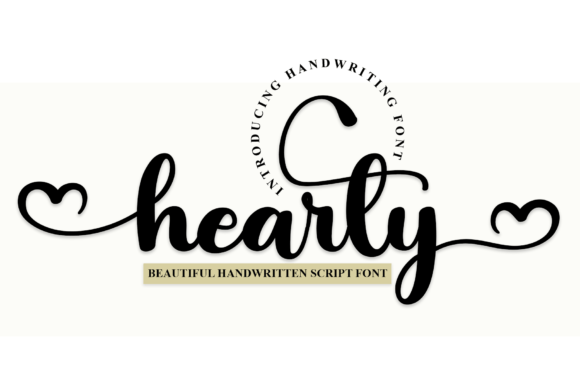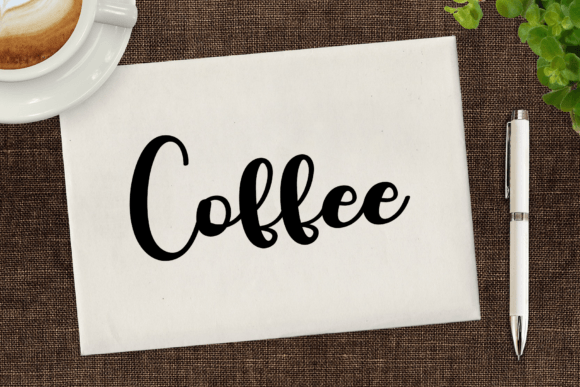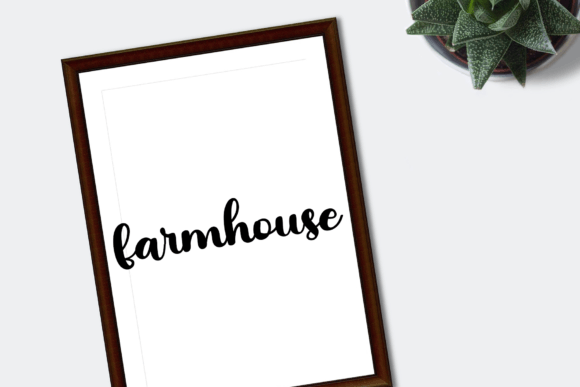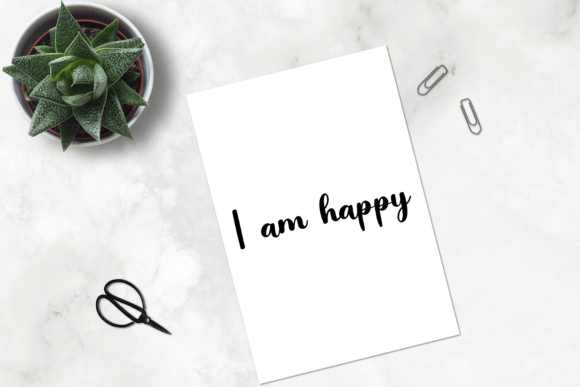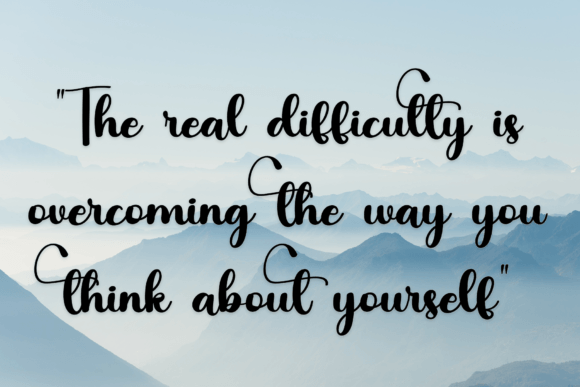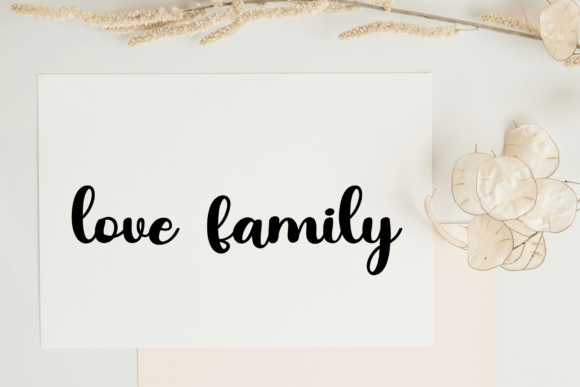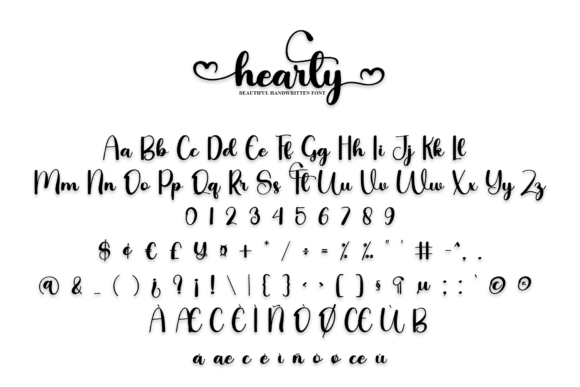
The Birth of a Beautiful Type: Hearty Font
As a designer, have you ever sat staring at a blank canvas, waiting for inspiration to strike? For many of us, it’s in those moments of creative limbo that we discover something truly special. For me, it was a late-night brainstorming session that led to the discovery of Hearty Font – a beautiful, elegant typeface that has since become my go-to choice for all things feminine and fabulous.
Hearty Font is more than just a pretty face; it’s a versatile and sophisticated tool designed to elevate any headline. Whether you’re crafting wedding stationery, designing packaging for a boutique florist, or creating social media posts that pop, Hearty Font is the perfect choice. Its delicate yet striking lines make it an instant favorite among designers, and for good reason – it’s a game-changer.
Hearty Font Key Features
- Unique Characteristics: Designed with a unique blend of modern and traditional elements, featuring a bold and friendly feel
Hearty Font Review
When I first laid eyes on the Hearty Font, I was immediately drawn to its warmth and inviting feel ✨. The font’s organic, handwritten style lends itself perfectly to designs that need a touch of personality and character. The Hearty Font is ideal for use in titles, headings, and other large-scale text elements where you want to make a statement.
The font’s versatility is another major plus ✨. It works well across a range of digital platforms, from websites and mobile apps to social media and print materials. The font’s robustness and legibility also make it a great choice for use in environments with varying screen resolutions and font sizes.
While the Hearty Font is a solid choice for many design applications, there are some limitations to be aware of ⚠️:
- The font may not be the best choice for use in body text, as it can be quite dense and may be difficult to read in large blocks.
- The font’s handwritten style can be a bit inconsistent, which may make it challenging to achieve perfect alignment and spacing.
Overall, I’m impressed with the Hearty Font’s unique character and versatility ✨. While it may not be the best choice for every design application, it’s a great option to have in your toolkit. With a little creativity and experimentation, you can achieve some truly unique and engaging designs using the Hearty Font.
Tips for Getting the Most Out of Hearty Font
Hearty Font is ideal for creating bold, eye-catching headlines. Use it to add emphasis to your text and make it stand out in your design. Experiment with different font sizes and colors to create a visually appealing effect.
Alternatives to Hearty Font
Playfair Display is a luxurious, elegant serif font ideal for titles and headings. It features intricate details and ornate flourishes, making it perfect for high-end branding and sophisticated designs.
Compared to Hearty Font, Playfair Display is more ornate and less rustic. While Hearty Font has a warm, welcoming feel, Playfair Display is more refined and sophisticated.
Anton
Anton is a modern, elegant sans-serif font that works well for titles, headings, and body text. Its clean lines and geometric shapes make it perfect for minimalist designs and modern branding.
Compared to Hearty Font, Anton is more minimalist and less rustic. While Hearty Font has a warm, inviting feel, Anton is more neutral and versatile.
Montserrat is a geometric sans-serif font that works well for titles, headings, and body text. Its clean lines and urban feel make it perfect for modern branding and digital designs.
Compared to Hearty Font, Montserrat is more modern and less rustic. While Hearty Font has a warm, welcoming feel, Montserrat is more edgy and urban.